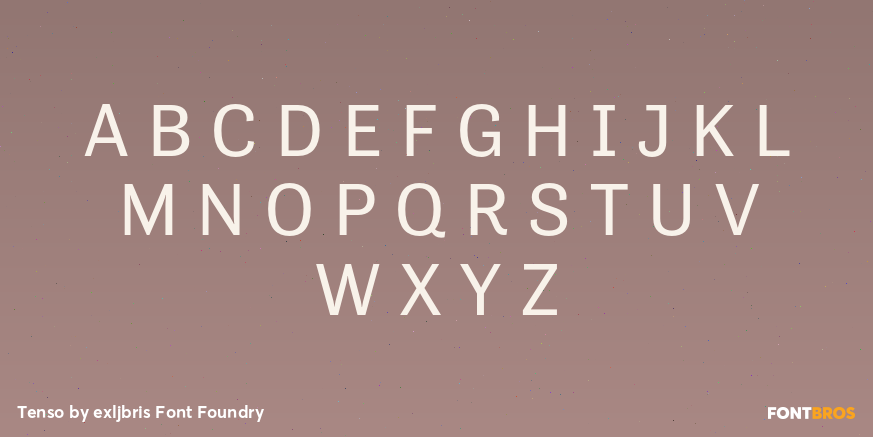
Tenso
Font Family by exljbris Font Foundry
Tenso is a modern sans serif family from exljbris Font Foundry, with a clean, contemporary voice that feels crisp and adaptable. Its straightforward structure and range of weights give it an efficient, polished look that can read as restrained in lighter styles or more assertive in the heavier cuts.
With 10 styles included—Light, Regular, Medium, Bold, and Black, each with matching italics—this family gives designers useful flexibility across display and branding work. It’s a strong fit for logos, editorial layouts, posters, social graphics, packaging, and other projects that call for a modern sans serif with a clear visual presence.